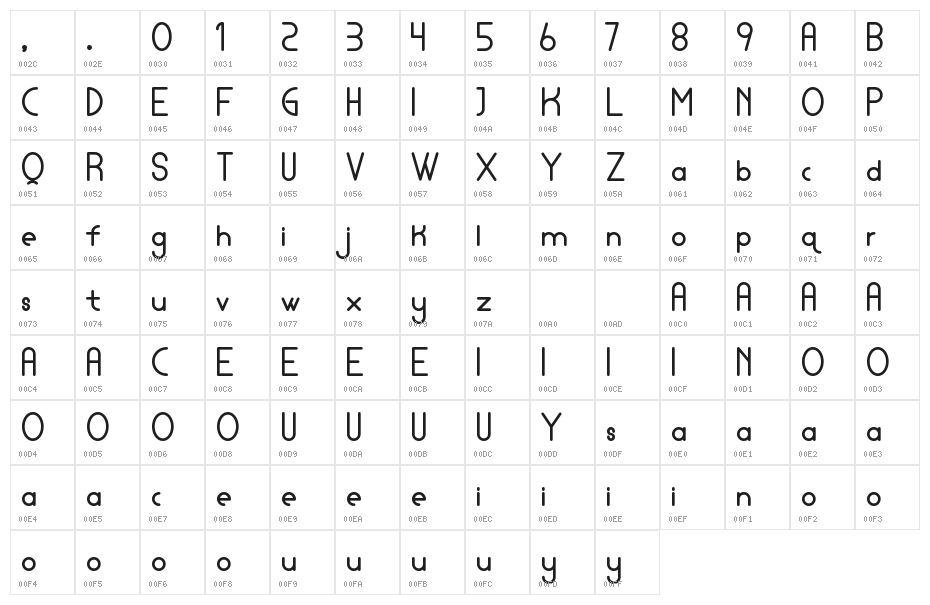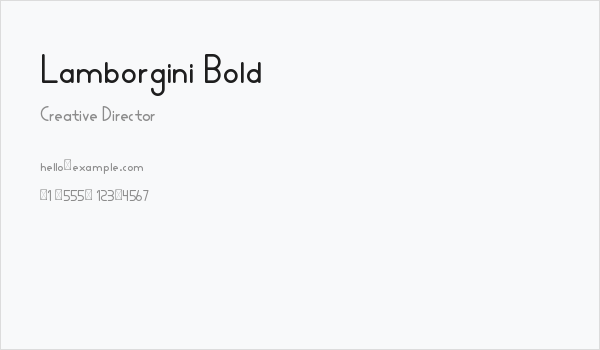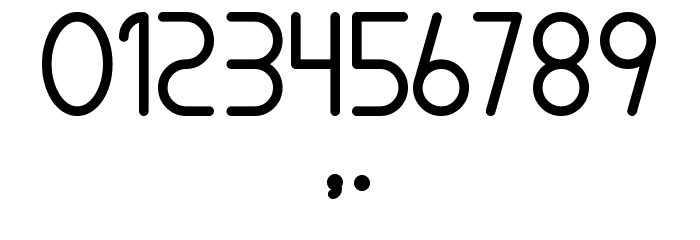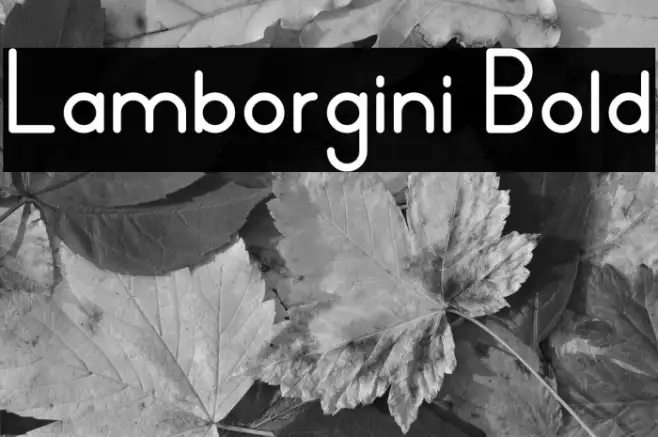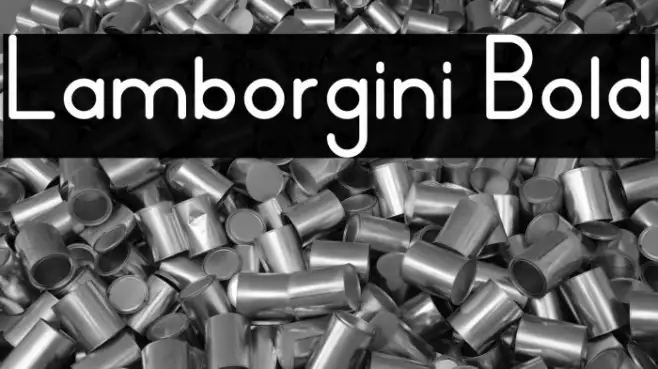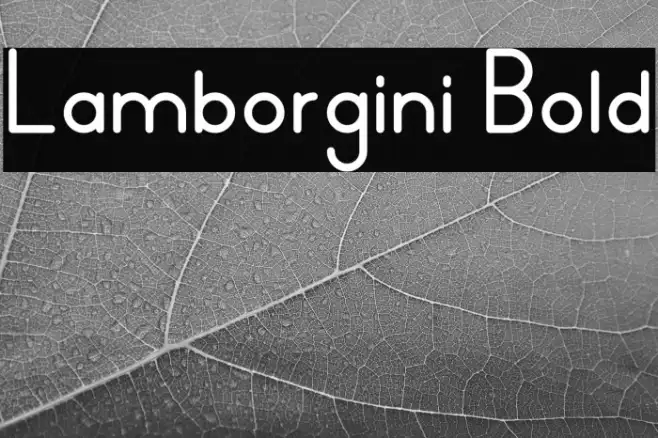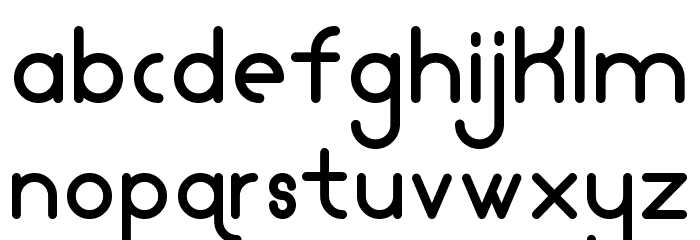
Lamborgini Bold Font
Lamborgini Bold Description
This font features a modern and playful design with rounded edges and a clean, geometric structure. The characters are evenly spaced, providing a balanced and harmonious appearance. The uppercase letters are bold and prominent, while the lowercase letters maintain a consistent style with slightly softer curves. The numerals are clear and easy to read, matching the overall aesthetic of the font. Special characters are included, adding versatility for various design needs. This font is suitable for projects that require a contemporary and approachable look.
| Use Case | Headlines, Logos, Digital Media |
| Proposed Projects | Ideal for branding, advertising, children's books, and digital media. |